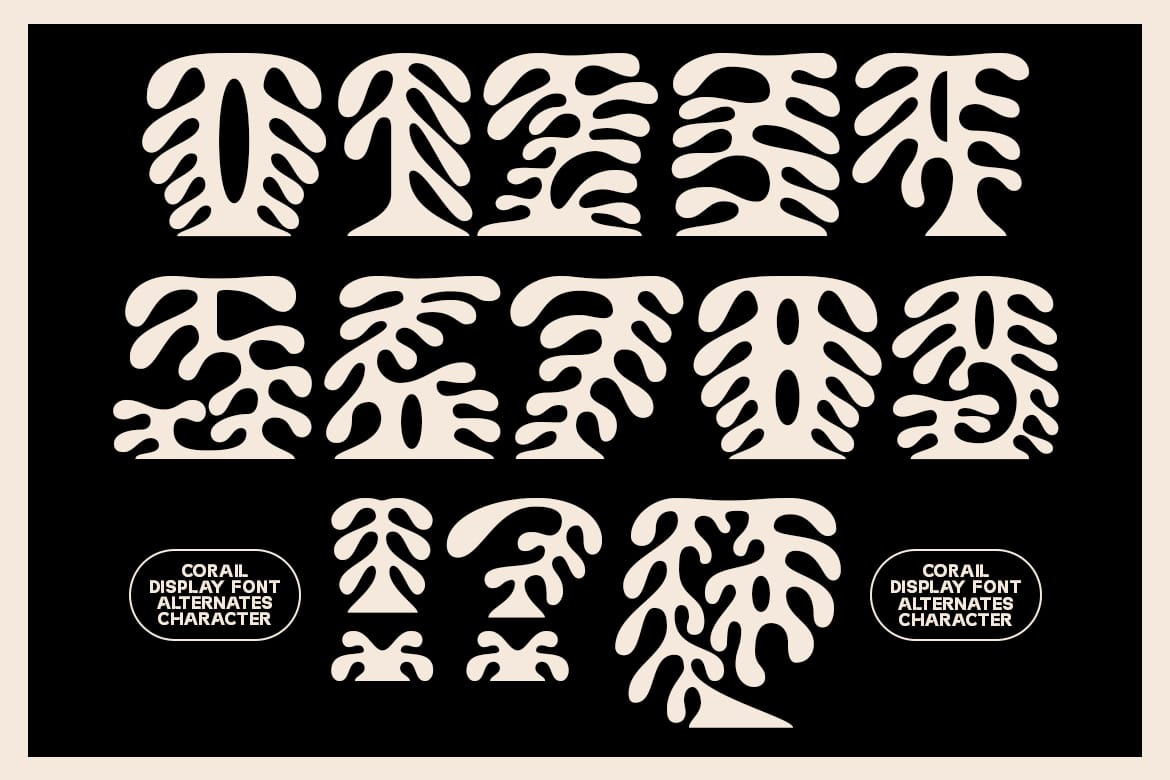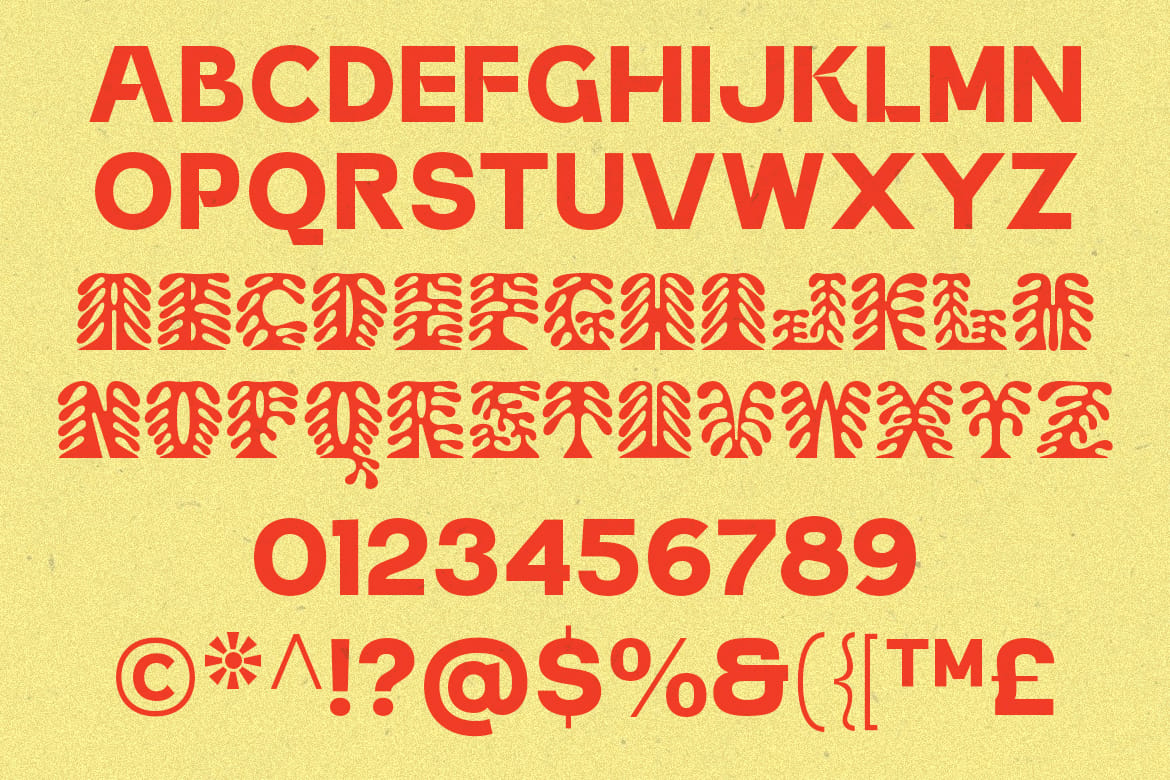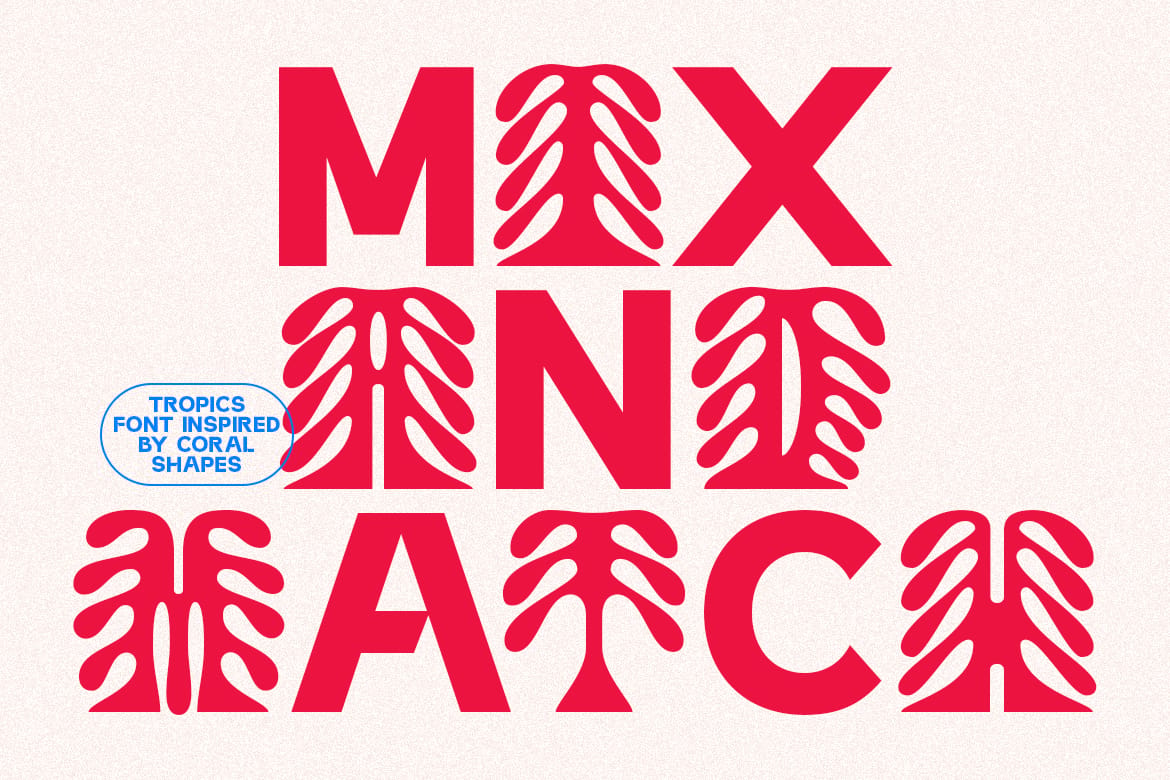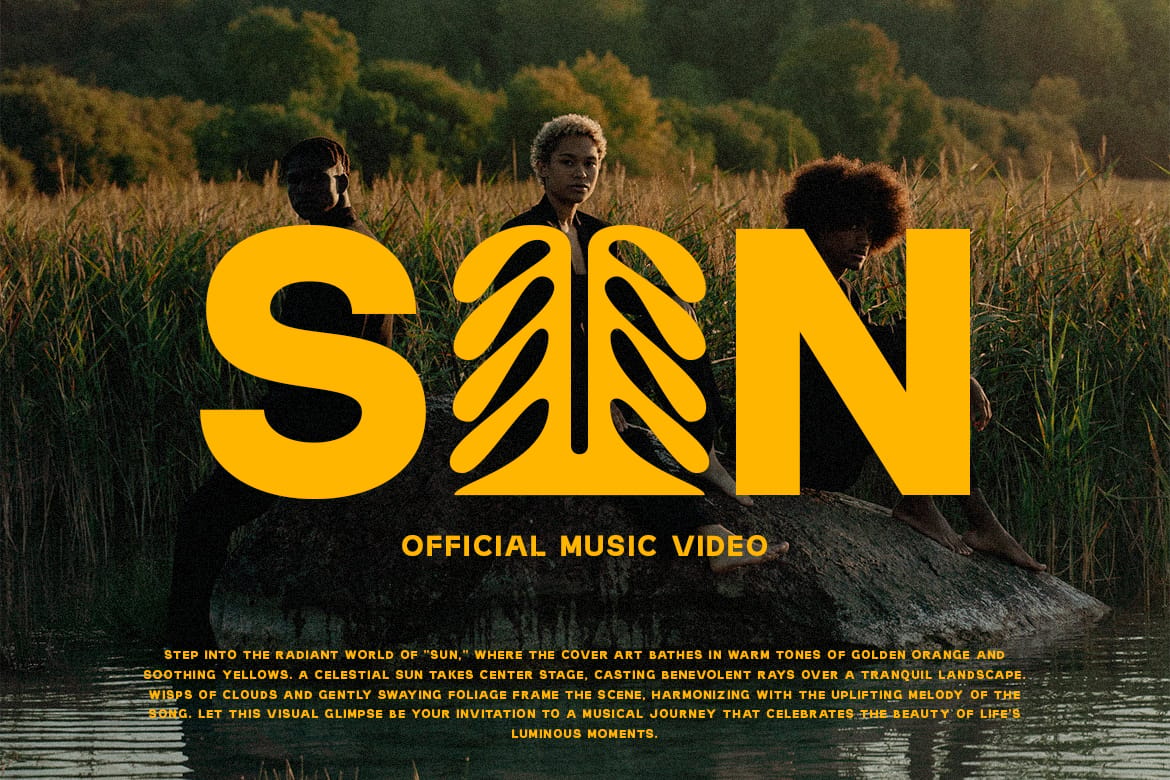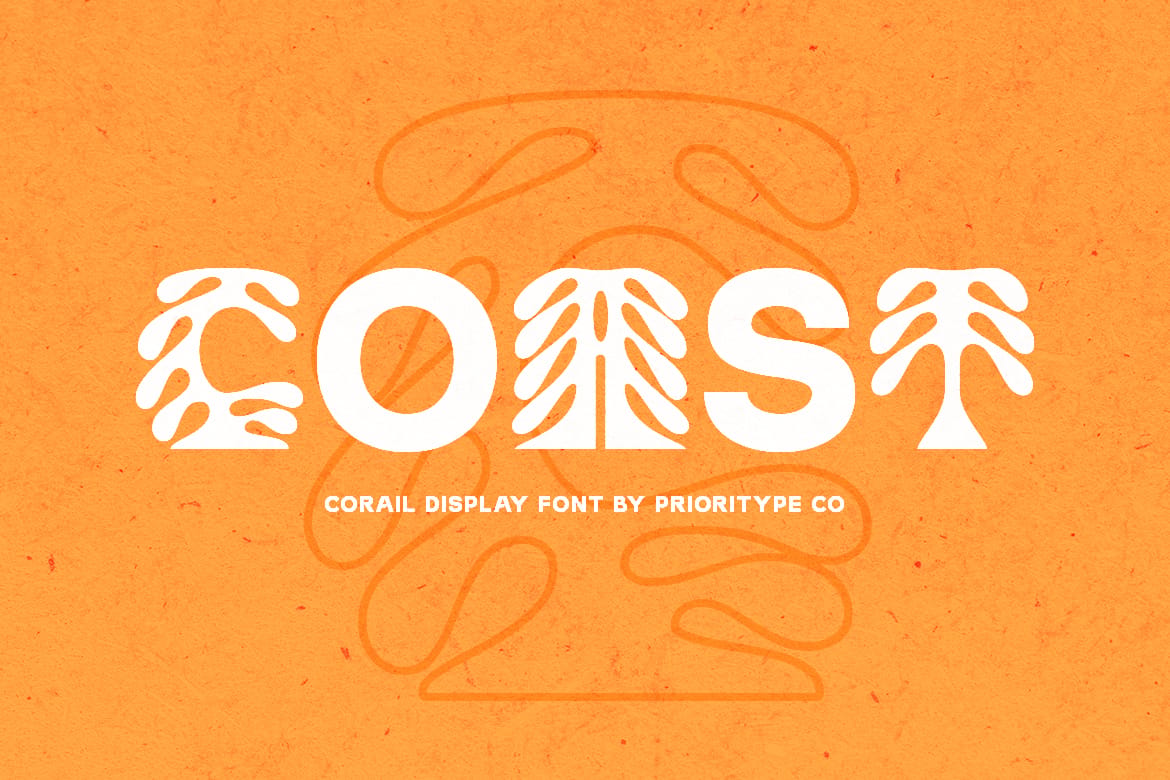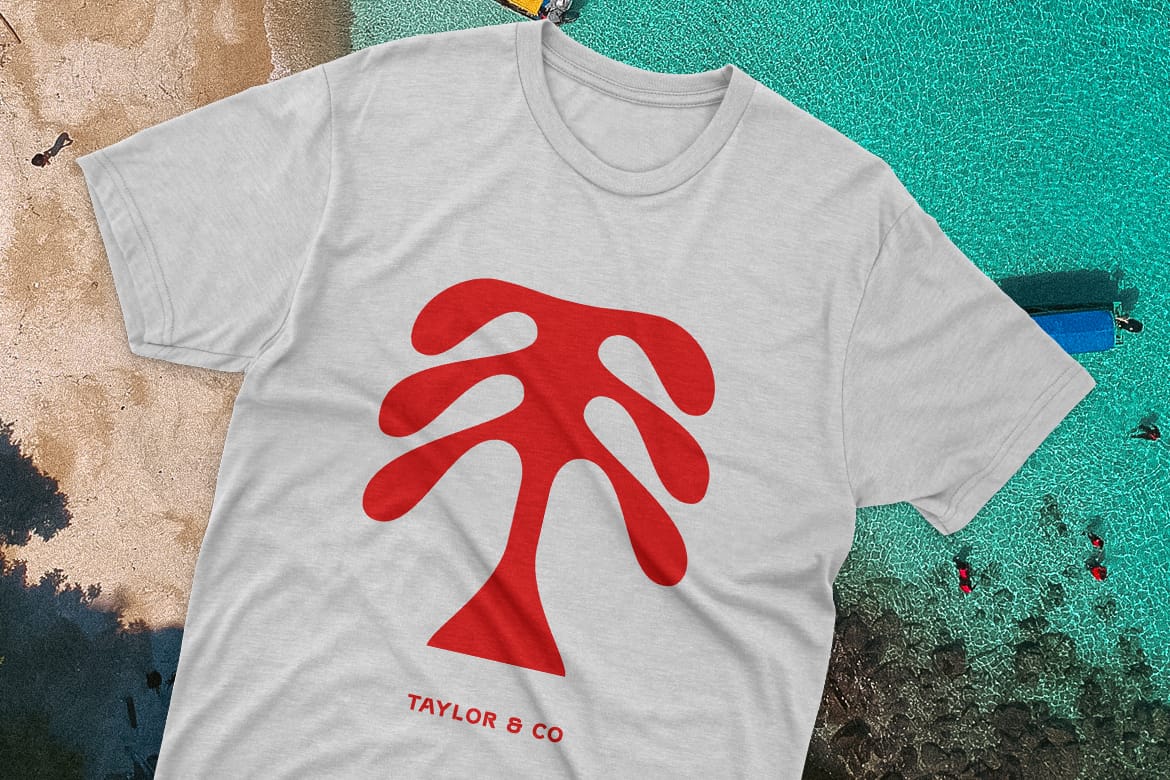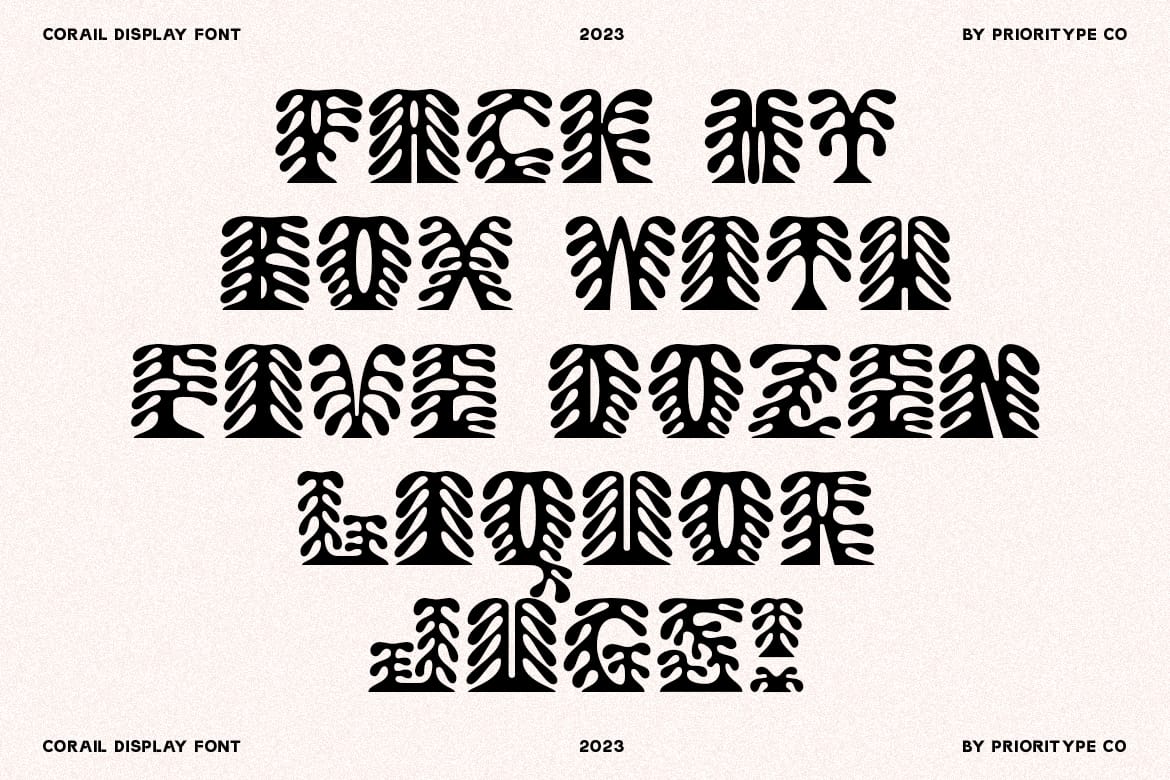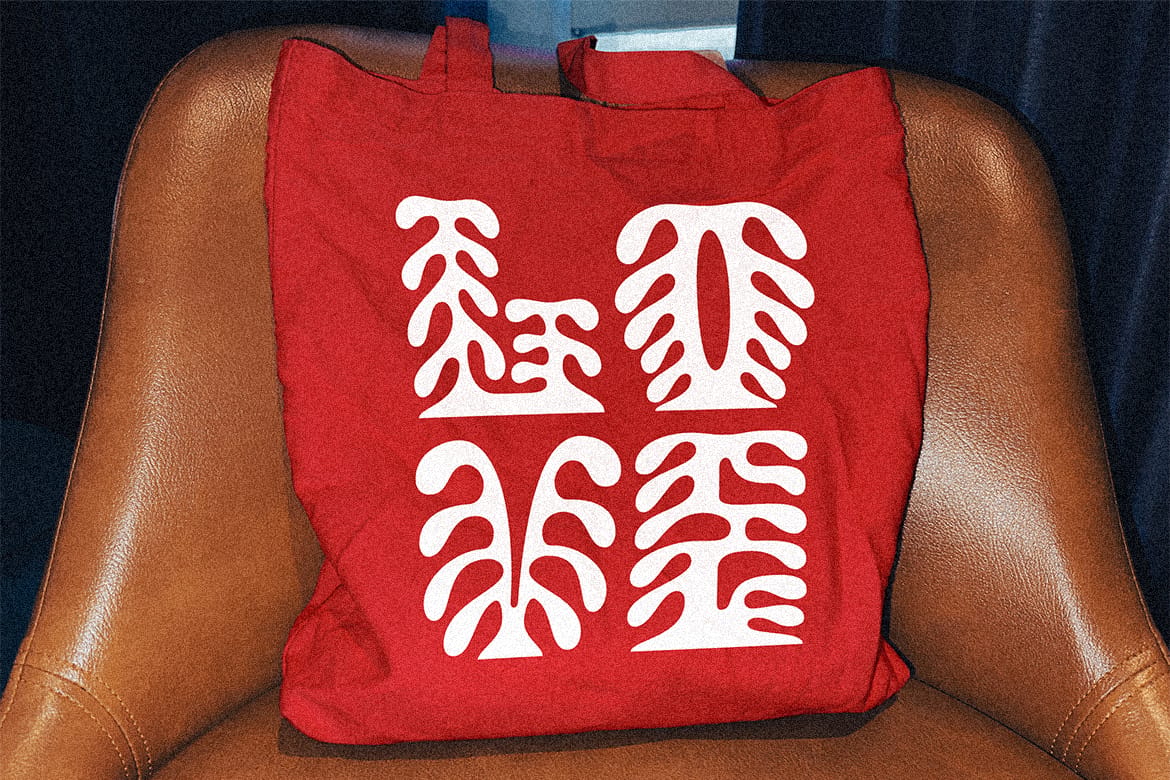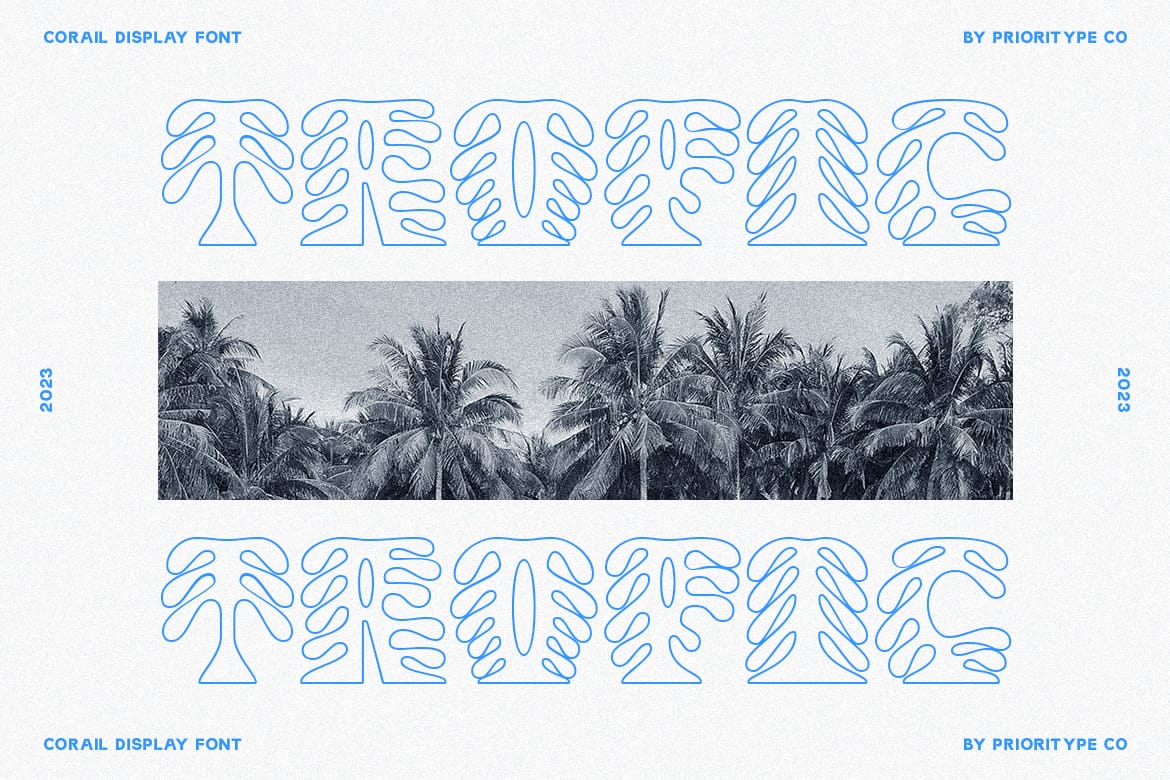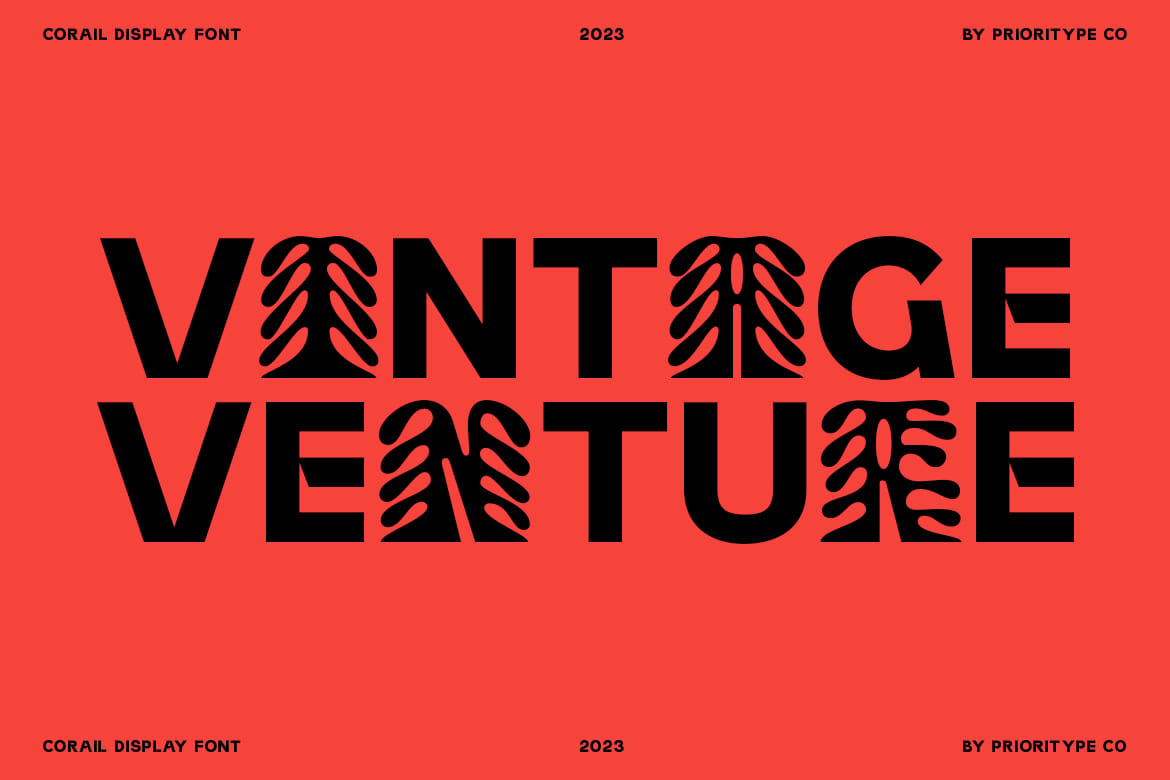
Corail Display Font
The typeface is inspired by the shape of coral and combined with sans serif display letters inside. Two styles available (Regular & Outline). Great for poster designs, merchandise, logos and more. Enjoy your type of Game!
- Coral-inspired display font design
- Regular and Outline styles included
- Great for posters and merchandise